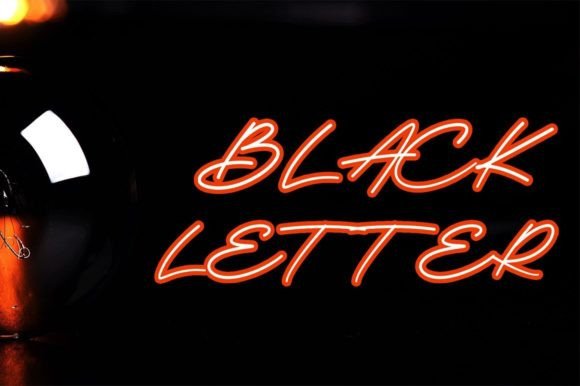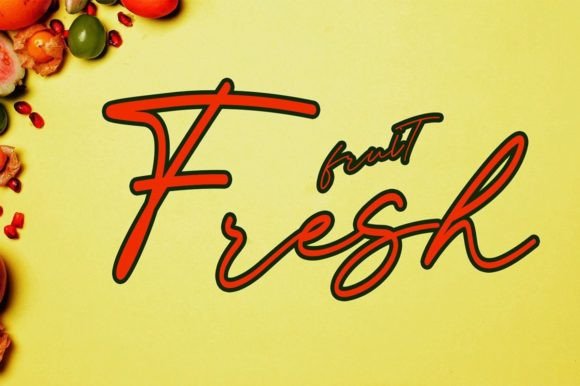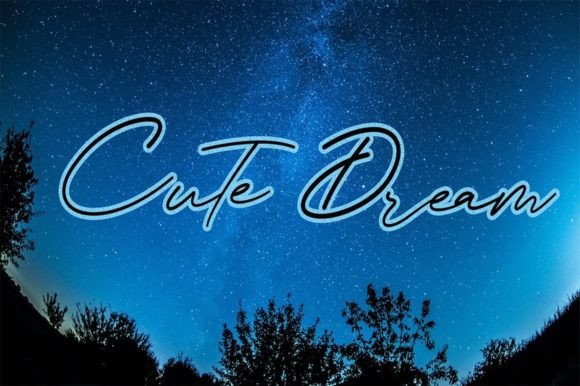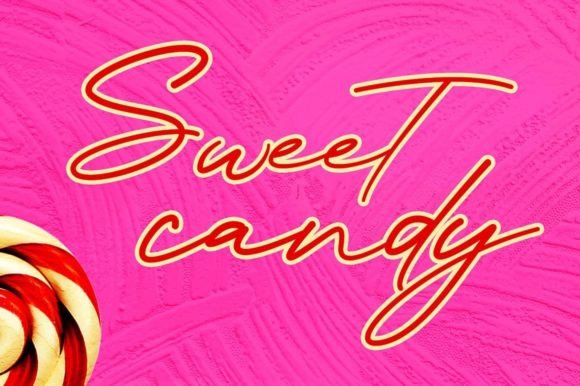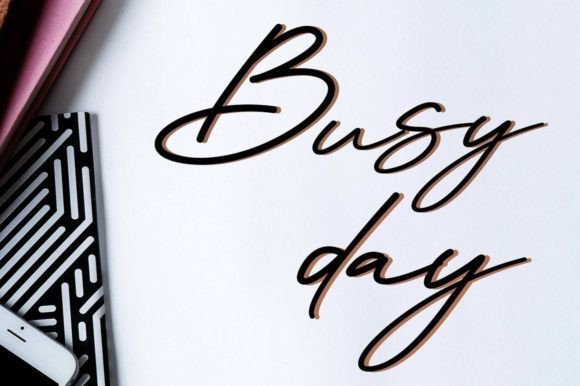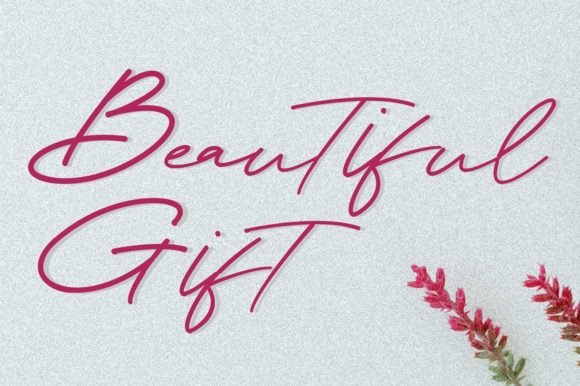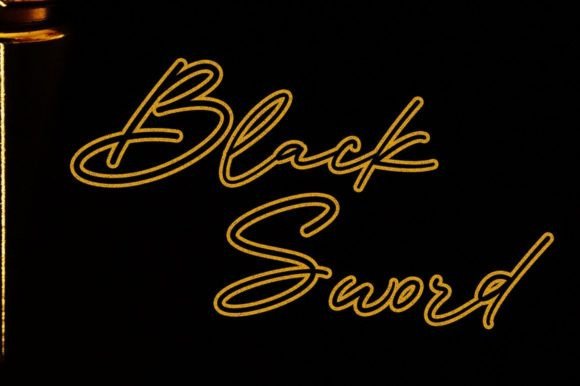
Unleash Your Creativity with Black Sword Font: A Versatile and Straightforward Design Asset
In the world of design, typography plays a crucial role in communicating messages, evoking emotions, and creating visual identities. Among the numerous font options available, Black Sword font stands out for its versatility, simplicity, and aesthetic appeal. This clean and well-balanced font has gained popularity among designers and crafters for its ability to match a wide range of designs, making it an excellent addition to any creative project.
What Makes Black Sword Font Special?
Black Sword font is characterized by its straightforward and uncomplicated design. Each character is carefully crafted to ensure clarity and readability, making it an ideal choice for various applications, from digital media to print materials. The font’s clean lines and balanced proportions create a sense of stability and professionalism, allowing designers to convey their message with confidence.
Key Features of Black Sword Font
- Clean and Well-Balanced Characters: Black Sword font features characters with clean lines, precise curves, and well-balanced proportions, ensuring excellent readability and aesthetic appeal.
- Versatility: This font is designed to work well with a wide range of designs, from minimalist and modern to bold and edgy, making it a versatile asset for various creative projects.
- Straightforward Design: The font’s straightforward design ensures that it doesn’t compete with other design elements, allowing it to complement and enhance the overall visual identity.
Use Cases for Black Sword Font
Black Sword font’s versatility makes it suitable for a variety of applications, including:
- Branding and Logo Design: Create a strong and professional visual identity with Black Sword font, perfect for logos, business cards, and letterheads.
- Digital Media: Use Black Sword font in social media graphics, blog posts, and website designs to convey a sense of modernity and sophistication.
- Print Materials: Add a touch of elegance and professionalism to brochures, flyers, posters, and other print materials with Black Sword font.
- Crafting and DIY Projects: Incorporate Black Sword font into your crafting and DIY projects, such as handmade cards, scrapbooking, and journaling, to add a personal touch.
Tips for Using Black Sword Font Effectively
Black Sword font is a versatile and straightforward design asset that can elevate your creative projects to the next level. Its clean and well-balanced characters make it an excellent choice for a wide range of applications, from branding and digital media to print materials and crafting projects. By incorporating Black Sword font into your design toolkit, you’ll be able to create visually appealing and effective designs that communicate your message with confidence.